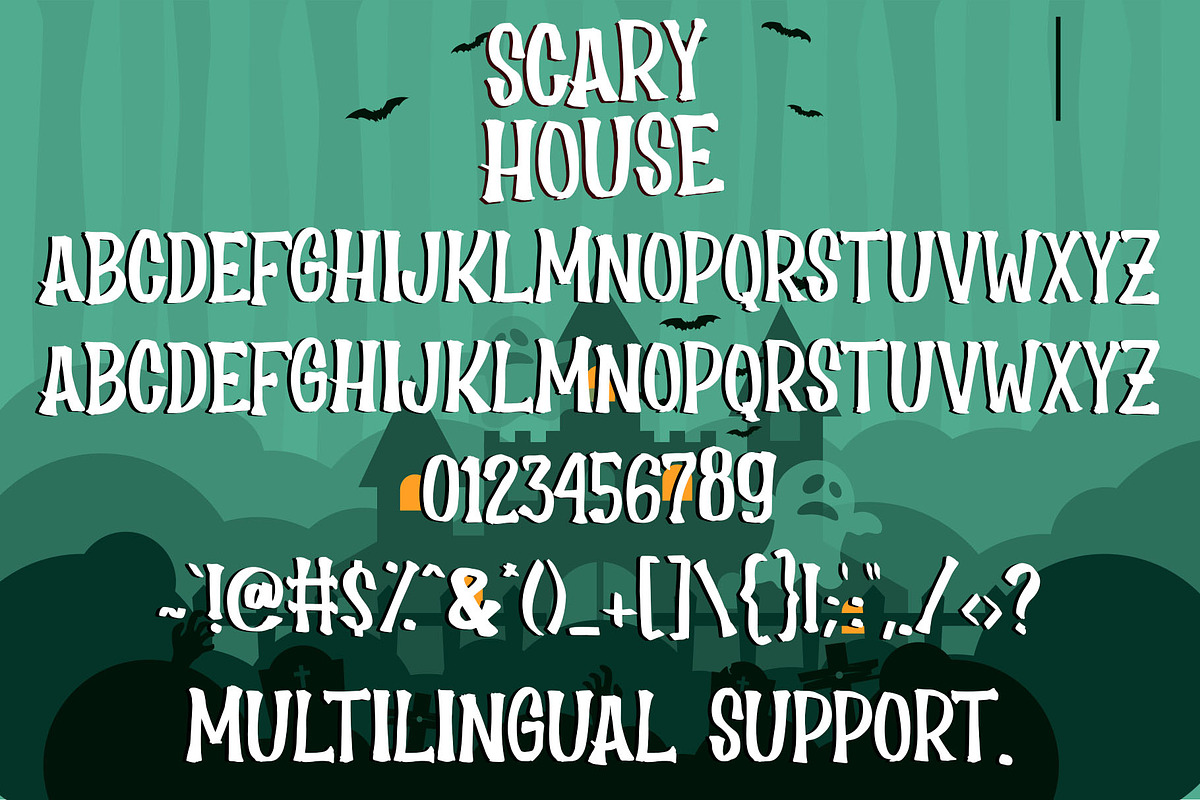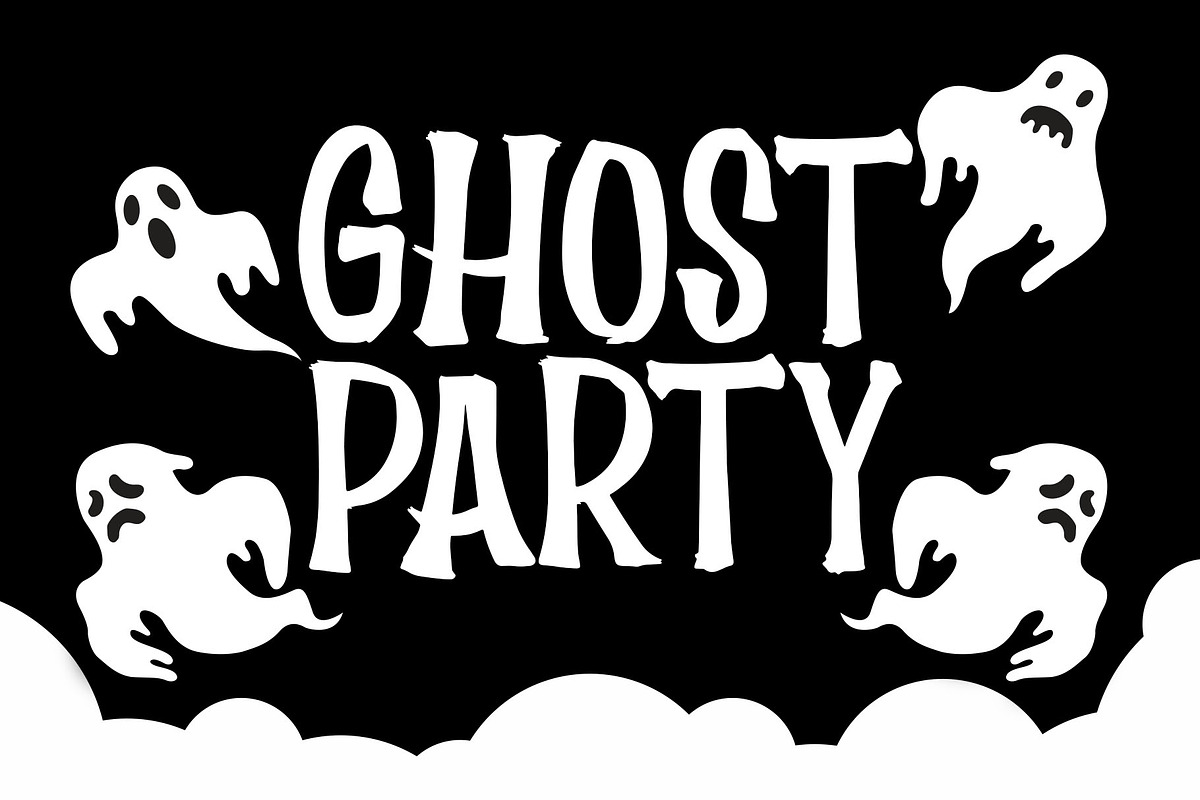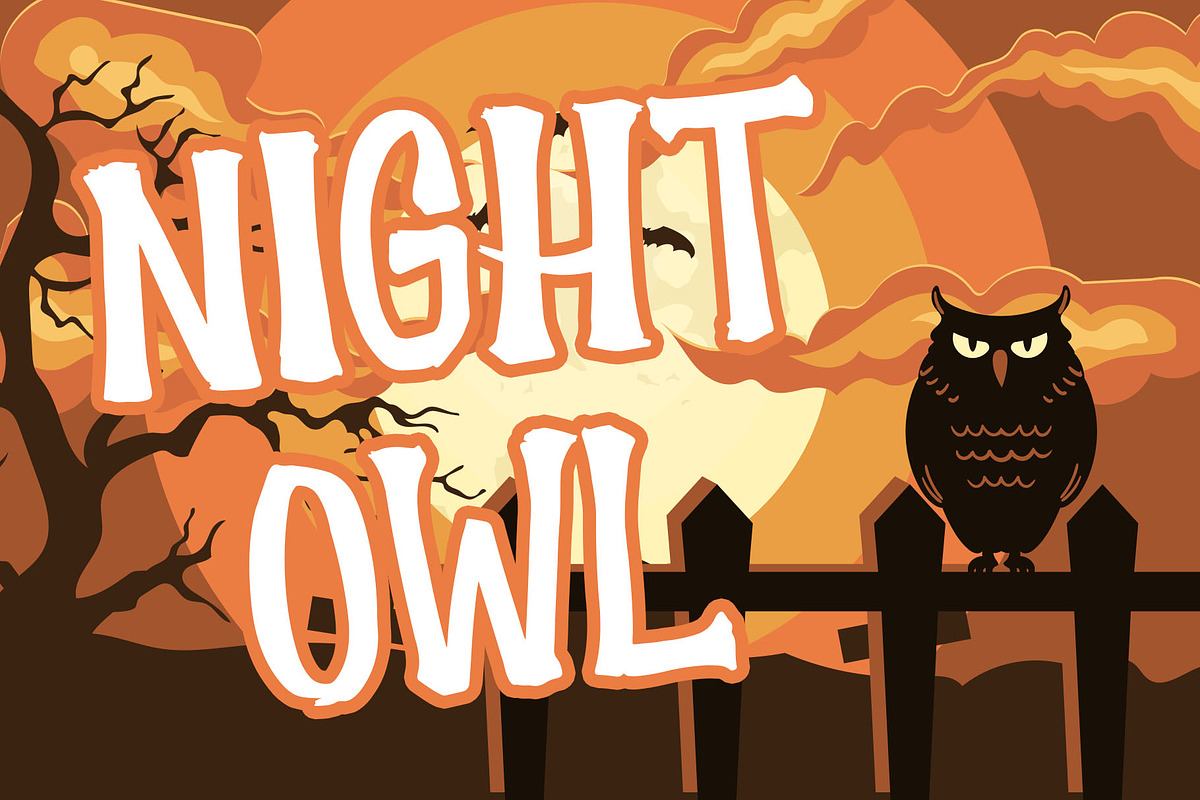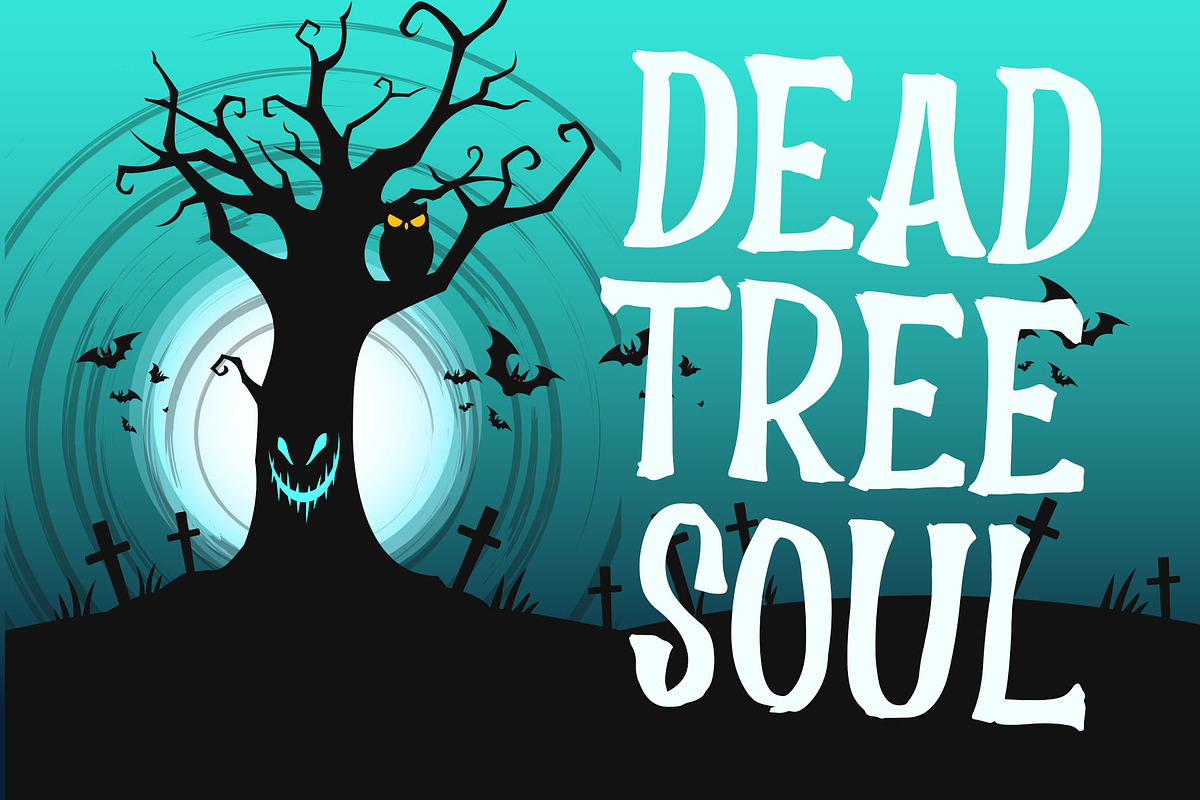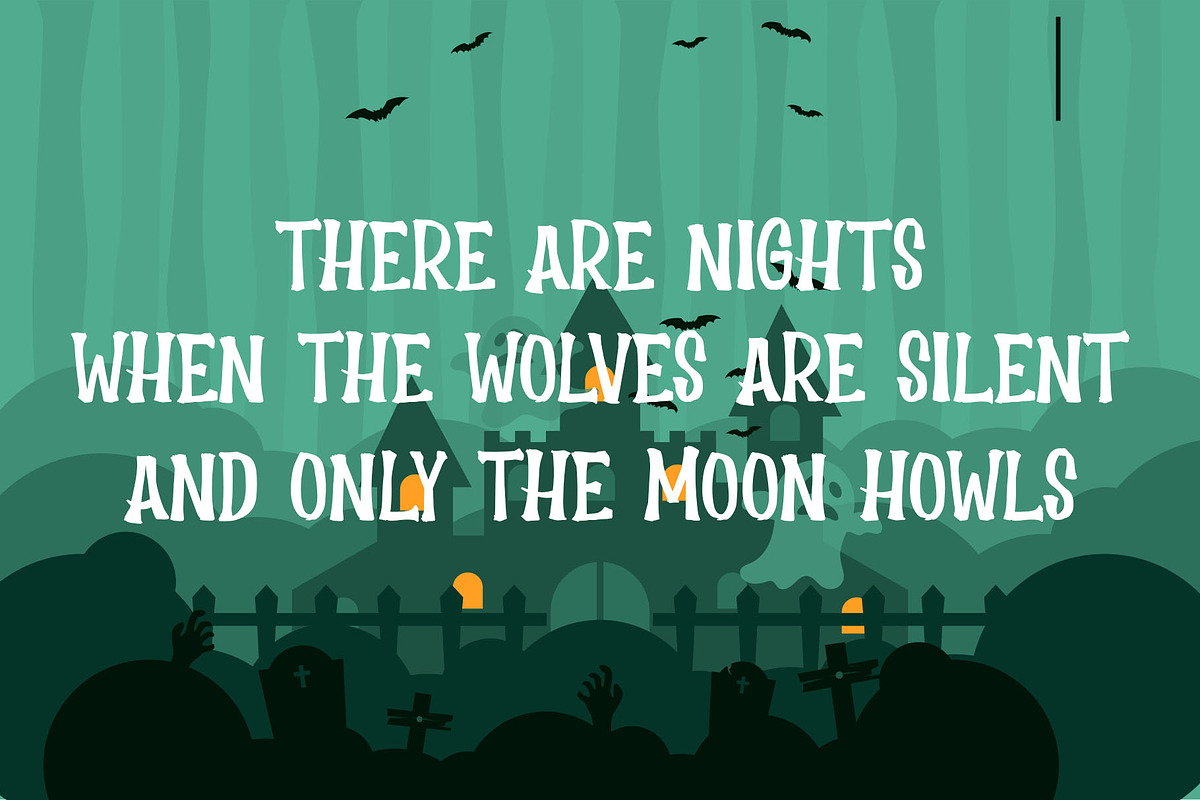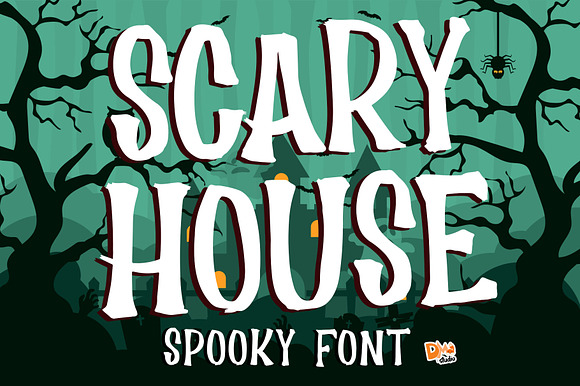
Scary House - Spooky Font
Scary House is a rough and spooky display font, great for your Halloween moment!
Symbols and punctuations
- All in caps only